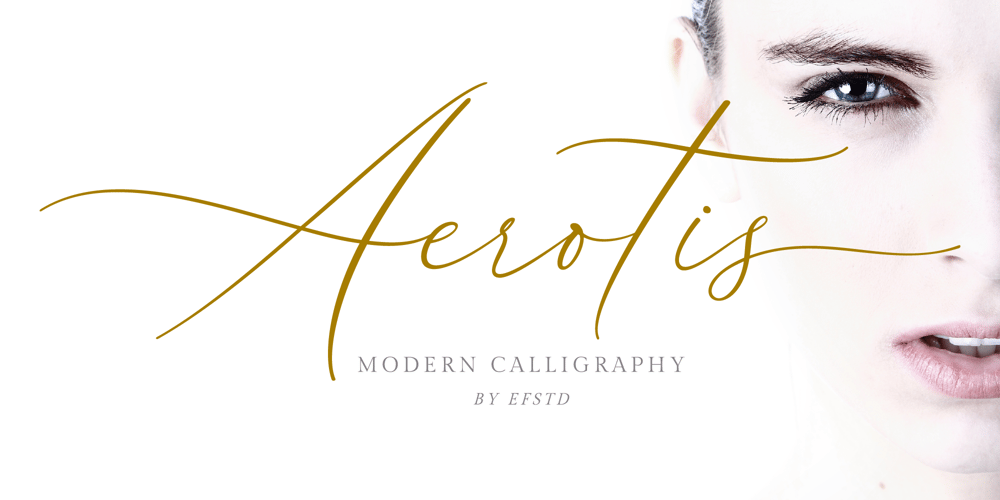
Aerotis Font Family was designed by Luthfi Fauzi and published by Ef Studio. Aerotis contains 1 styles and family package options. Introducing Aerotis, a classy modern calligraphy font. Aerotis is perfect for invitations, branding, websites, red wine labels, and editorial designs. Includes all upper and lowercase letters, multilingual support, punctuation, binding and initial and final swash.